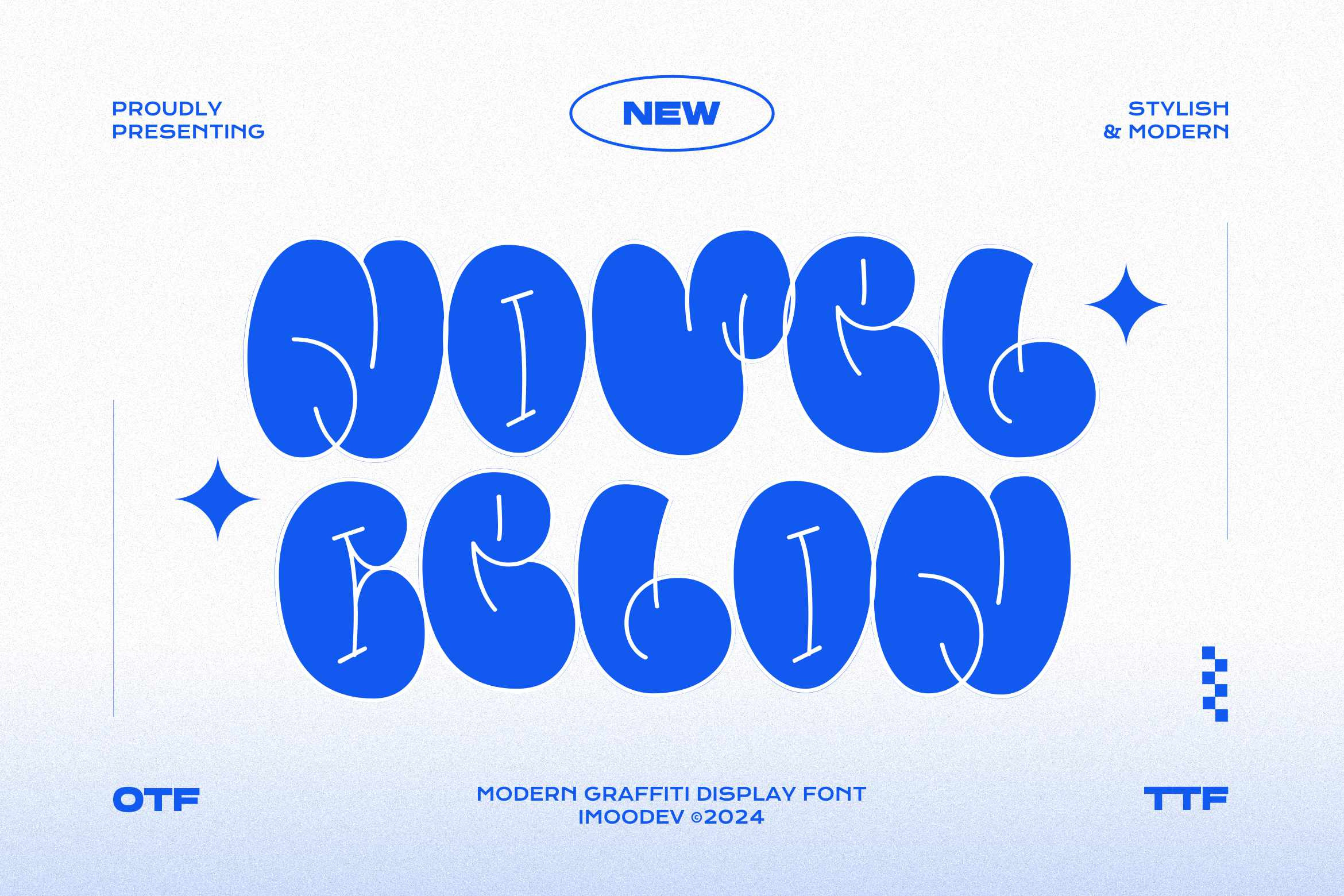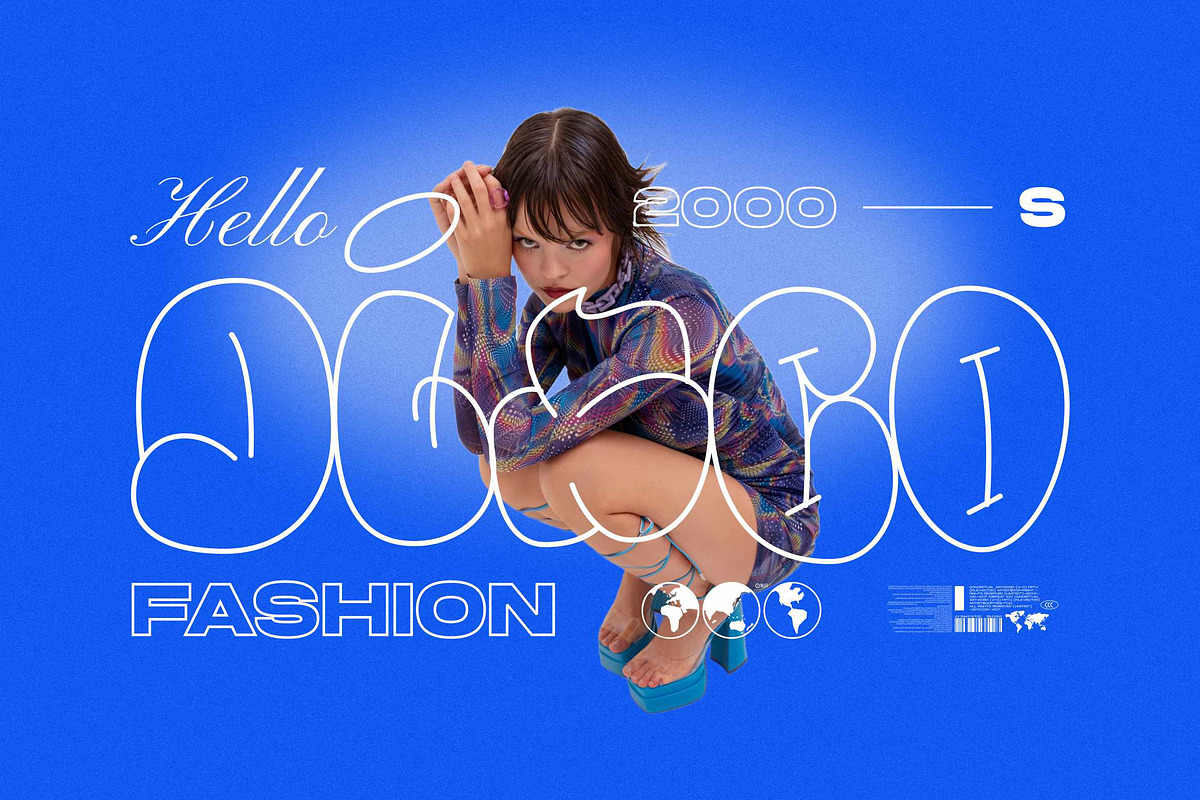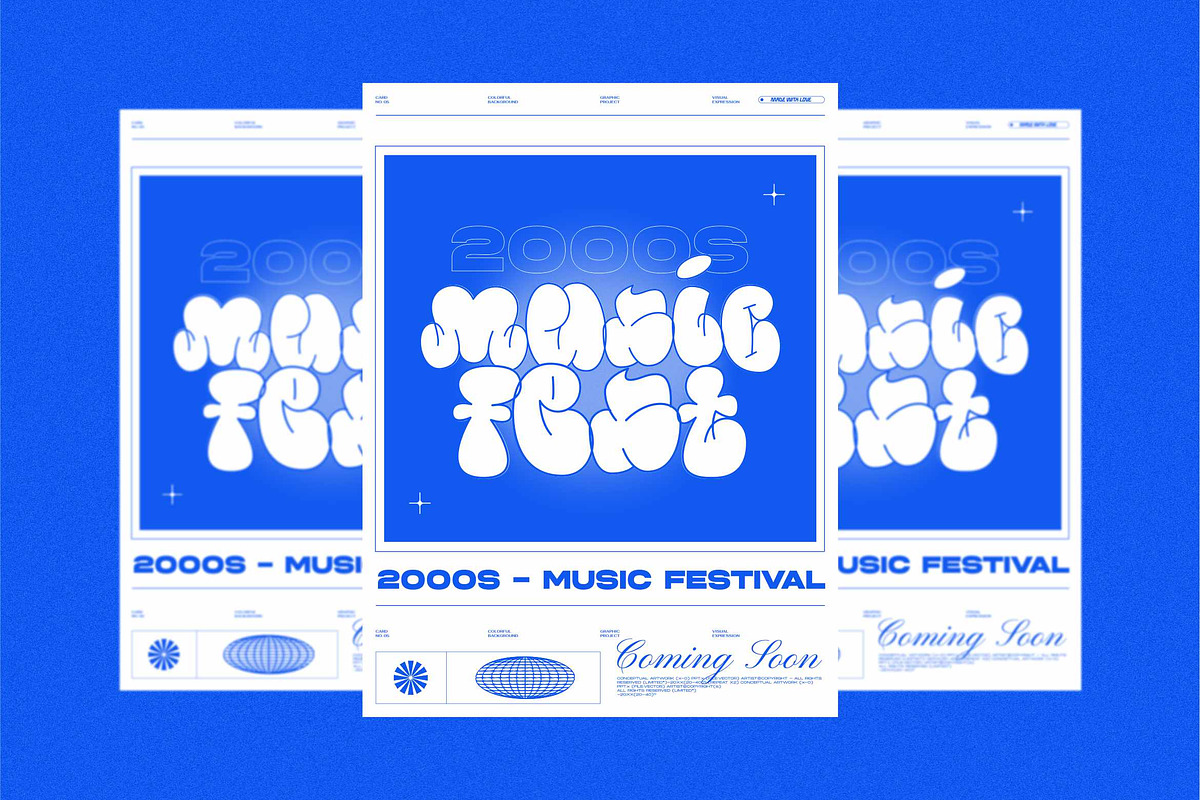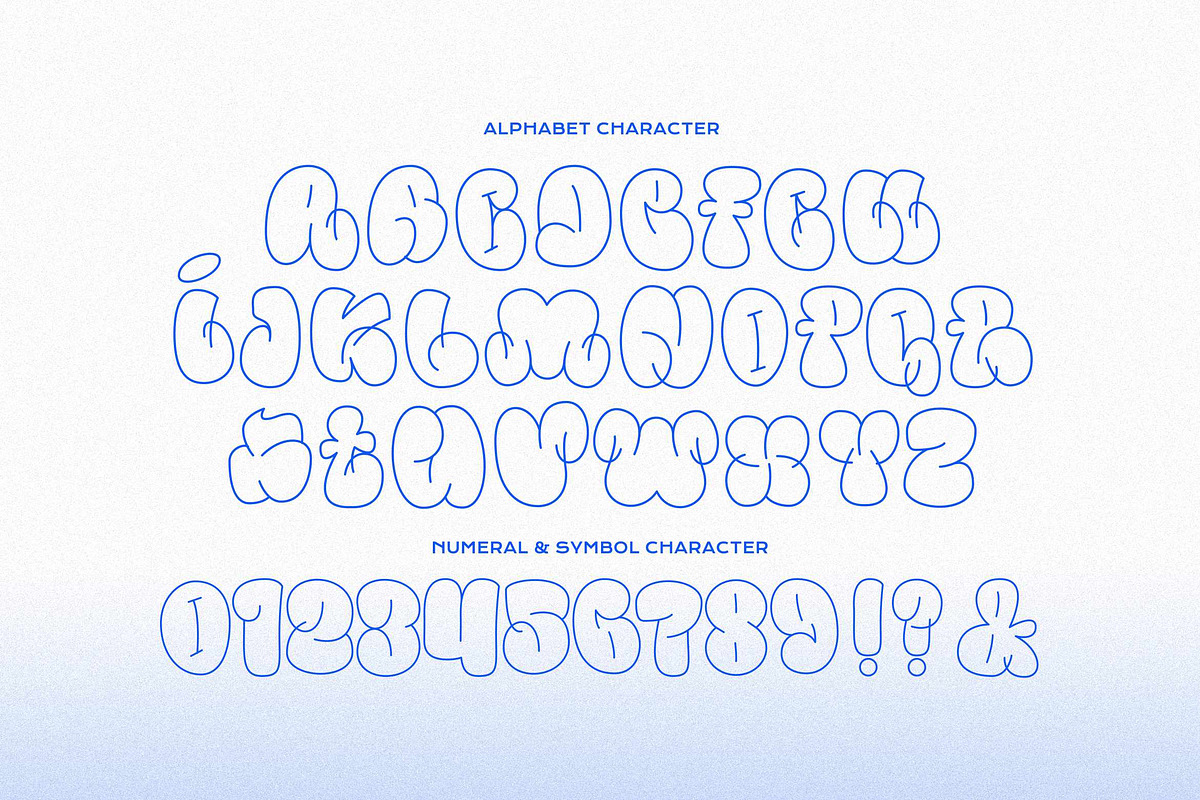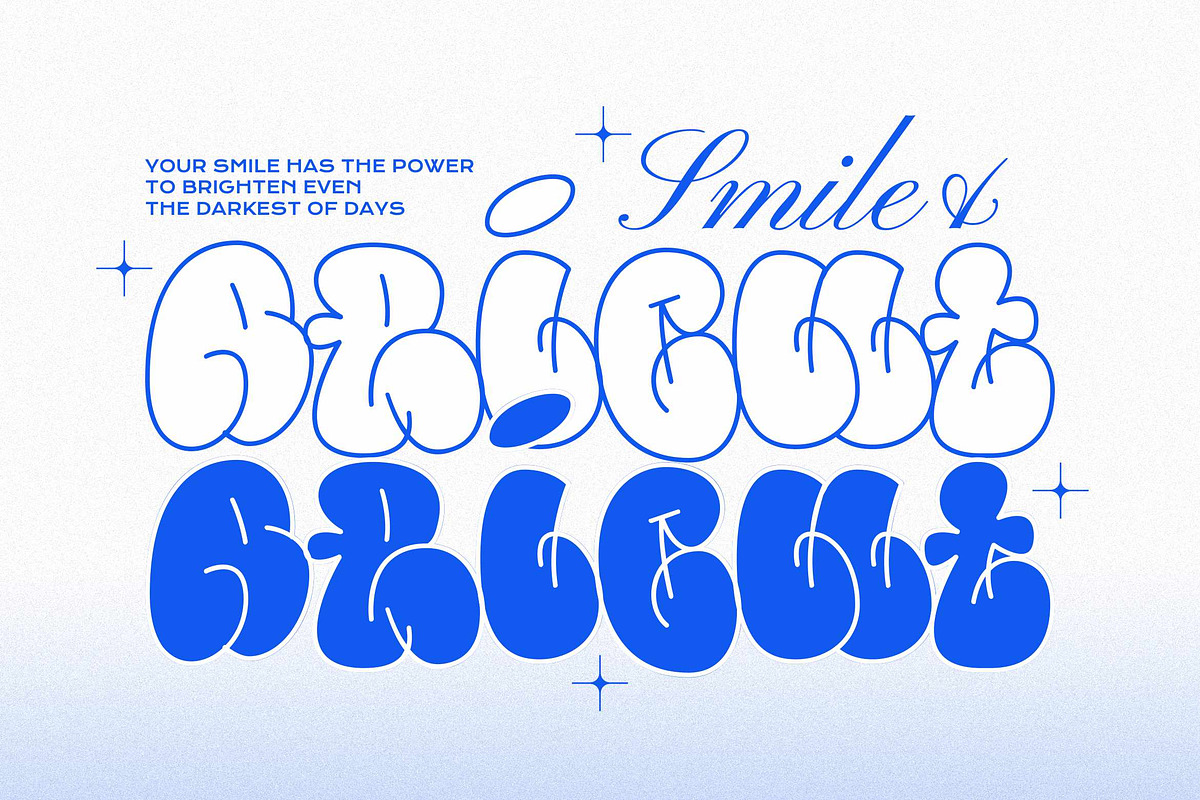
Novel Celon - Graffiti Font
Novel Celon is a modern graffiti display font boasts ultra-bold, rounded letterforms with a playful bubble style that demands attention. You can play with separate characters or overlapping each other. Each character is outlined in a single, fluid stroke, giving it a puffy, almost balloon-like vibe, while the skinny, stick-like lines inside add a quirky, handwritten twist.
This font suitable for youthful branding or creative startups, poster headlines, urban fashion labels, music events, street art festivals, eye-catching social media graphics.